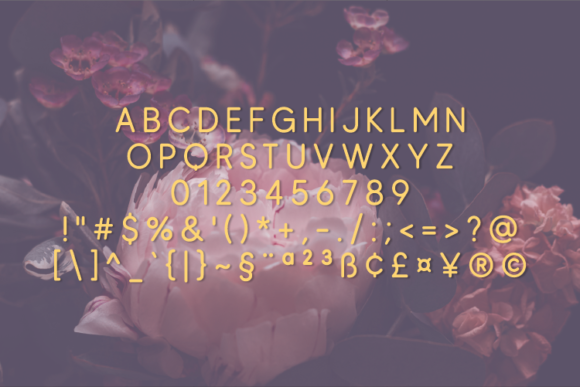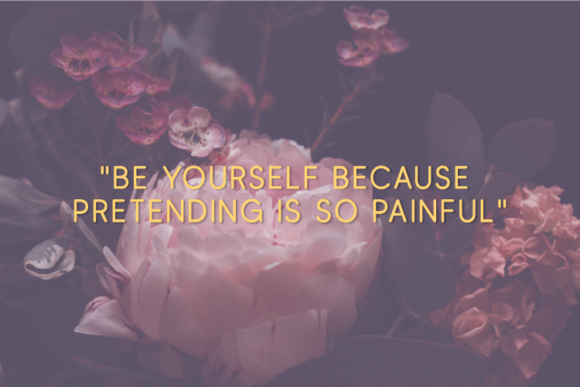
Introduction to Heltcorp Font
Have you ever stared at a blank canvas, trying to find the perfect font to bring your creative project to life? The search can be overwhelming, especially when you’re looking for a font that’s both stylish and readable. But what if I told you that I’ve discovered a game-changing font that’s sure to elevate your designs?
Meet the Heltcorp Font, a modern sans serif font that’s perfect for fashion branding or editorial designs. Its thin and stylish design makes it a valuable asset for any designer looking to add a touch of sophistication to their work. With its high-quality design and transparent background, this font is a must-have for any design resource.
Key Features of Heltcorp Font
- High-quality design: Heltcorp Font is a premium design resource ideal for any creative project, offering a professional look and feel.
- Transparent background: Heltcorp Font features a transparent background, allowing for easy customization and seamless integration into any design.
- Large character set: Heltcorp Font includes a comprehensive character set, covering a wide range of languages and characters, making it an excellent choice for international designs.
- High-resolution design: With a resolution of 300 DPI, Heltcorp Font is ideal for high-quality prints and digital designs, ensuring a crisp and clear appearance.
- Unique design style: Heltcorp Font features a unique and modern design style, setting it apart from other fonts and making it an excellent choice for designers looking to add a touch of creativity to their project.
Honest Review: Heltcorp Font
What works well is the clean and modern aesthetic of the Heltcorp Font. It’s perfect for projects that require a professional touch, and its transparent background makes it easy to overlay on images or other design elements. ✨ The font is also highly customizable, allowing me to adjust the size, color, and spacing to suit my design needs.
- Perfect for creative projects that require a modern and professional look
- Highly customizable with a transparent background
However, I did encounter a few limitations. The font doesn’t come with as many font weights as I would have liked, which can limit its versatility in certain design situations. ⚠️ Additionally, the font may not be as legible at smaller font sizes, which can be a concern for projects that require a lot of text.
Overall, I’m impressed with the Heltcorp Font, and I think it’s a great addition to any designer’s toolkit. While it may have some limitations, its clean design and high customizability make it a valuable resource for any creative project.
Design Tips and Tricks
To get the most out of the Heltcorp Font, use it in conjunction with a transparent background to create a high-quality design. Experiment with different font sizes and styles to add visual interest to your project.
The Heltcorp Font is ideal for various creative projects, including:
- Graphic design projects
- Branding and logo design
- Infographic design
- Web design projects